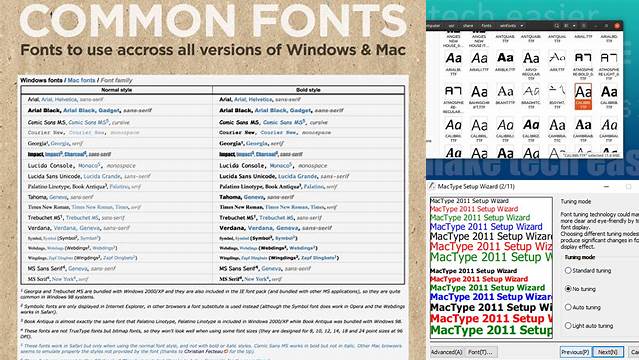
Best Cross-Platform Fonts: Windows, Mac, Linux
So, you're diving into the world of fonts, huh? Awesome! One of the trickiest things about working across different operating systems like Windows, Mac, and Linux is that not all fonts are created equal...or rather, not all fonts come pre-installed on each system. This can lead to some major headaches when you open a document on a different OS and suddenly everything looks like a jumbled mess. We're going to explore common fonts that play nice across these platforms. Knowing which fonts are universally available will save you time, frustration, and a whole lot of reformatting. Let's get started and make sure your documents look great no matter where they're opened!
Why Font Compatibility Matters
Font compatibility is super important, guys. Imagine creating a beautiful presentation in Windows, using your favorite font, only to have it look completely different (or worse, unreadable) when opened on a Mac. That's because the font you used might not be installed on the Mac. Using common fonts ensures that your documents, presentations, and web designs appear as intended across different operating systems. It helps maintain a consistent and professional look, preventing unexpected font substitutions that can mess up your layout and readability. This is particularly crucial for businesses, educators, and anyone sharing files with users on different platforms. By sticking to universally available fonts, you avoid compatibility issues and ensure your message is delivered clearly and effectively, no matter the device or operating system.
Arial: The Ubiquitous Sans-Serif
Ah, Arial. You've probably seen it everywhere. Arial is a common font and a true workhorse of the font world. It's a sans-serif font, meaning it lacks the little decorative strokes (serifs) that you see on fonts like Times New Roman. Arial is pre-installed on Windows, macOS, and most Linux distributions, making it a safe bet for cross-platform compatibility. Its clean and simple design makes it highly readable in various sizes and formats, whether you're working on a document, a presentation, or a website. While some designers might consider it a bit overused (and yes, there are cooler fonts out there), its reliability and widespread availability make it an essential choice when you need a font that just works, no matter what. Think of Arial as the dependable friend who always shows up when you need them.
Times New Roman: The Classic Serif
Times New Roman is a classic serif font that's been around for ages, a common font. You've definitely seen it in countless books, newspapers, and documents. Like Arial, Times New Roman is pre-installed on Windows, macOS, and many Linux systems, making it a reliable choice for cross-platform use. The serifs give it a more traditional and formal look, which can be great for academic papers, formal letters, or anything where you want to convey a sense of authority and seriousness. While it might not be the most exciting font, its familiarity and readability make it a solid option when you need a font that's universally recognized and easy on the eyes. It's the font equivalent of a well-tailored suit – always appropriate.
Courier New: The Monospaced Option
Courier New is a monospaced font. This means that every character takes up the same amount of horizontal space, unlike proportional fonts like Arial or Times New Roman. This common font is often used for coding, writing screenplays, or any situation where you need to align characters precisely. Courier New is pre-installed on Windows, macOS, and Linux, making it a safe choice for cross-platform compatibility. While it might not be the most visually appealing font for general use, its monospace nature makes it invaluable for specific tasks where character alignment is critical. It's the reliable tool in your toolbox that you might not use every day, but you're always glad to have around.
Verdana: Optimized for Screen Readability
Verdana is a sans-serif font designed with screen readability in mind. Its larger x-height (the height of lowercase letters) and wider proportions make it easier to read on computer screens, especially at smaller sizes. Like Arial, Times New Roman, and Courier New, Verdana is pre-installed on Windows, macOS, and many Linux distributions, making it a common font for cross-platform use. If you're creating content that will primarily be viewed on screens (like websites or presentations), Verdana is an excellent choice to ensure optimal readability. It's like having glasses for your text – making everything clearer and easier to see.
Impact: The Bold and Punchy Choice
Impact is a bold, sans-serif font that's designed to grab attention. Its condensed letterforms and heavy weight make it ideal for headlines, posters, and other situations where you want to make a statement. Impact is pre-installed on Windows and macOS, and while it might not be included in every Linux distribution by default, it's widely available and easy to install. This makes it a relatively safe choice for cross-platform use, especially if you're targeting Windows and Mac users. Just be careful not to overuse it, as its bold nature can become overwhelming if used excessively. Think of Impact as the loud friend who always makes an entrance.
Symbol: The Special Character Font
Symbol is a font that contains a variety of symbols, Greek letters, and other special characters. It's often used in scientific, mathematical, or technical documents where these characters are needed. Symbol is pre-installed on Windows and macOS, and while it might not be included in every Linux distribution, it's generally available. This makes it a useful common font to have on hand when you need to insert special characters into your documents. It's like having a secret codebook full of useful symbols and glyphs.
Webdings and Wingdings: The Pictorial Fonts
Webdings and Wingdings are pictorial fonts that contain a variety of symbols and icons instead of traditional letters and numbers. These fonts can be useful for adding visual elements to your documents or creating simple graphics. Webdings and Wingdings are pre-installed on Windows, but they might not be available on macOS or Linux by default. While they can be fun to use, keep in mind that they might not display correctly on all systems, so use them sparingly and always provide alternative text descriptions for accessibility. They are less common fonts these days. Think of them as the emoji ancestors.
Ensuring Font Compatibility: Best Practices
To ensure font compatibility across different operating systems, follow these best practices:
- Arial: Clean, modern, but very common.
- Calibri: Modern, readable, but also widely used.
- Garamond: Elegant, refined, a good alternative.
Choose a font that's readable, professional, and reflects your personal brand.
Common Fonts Used in Book Publishing
Book publishing has long-standing font traditions:
- Garamond: Classic, elegant, highly readable.
- Times New Roman: A workhorse for body text.
- Bembo: A refined and sophisticated serif font.
These fonts have proven their readability over centuries of use.